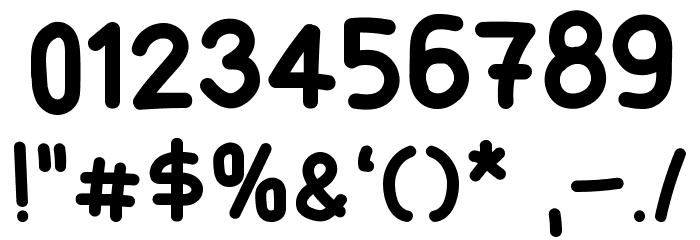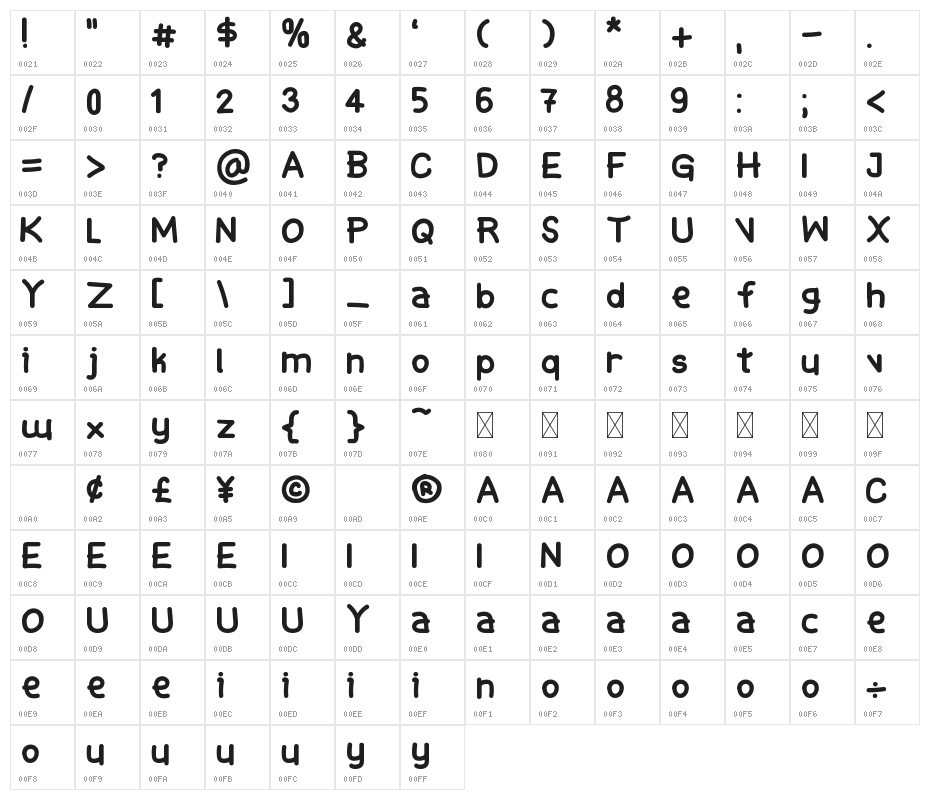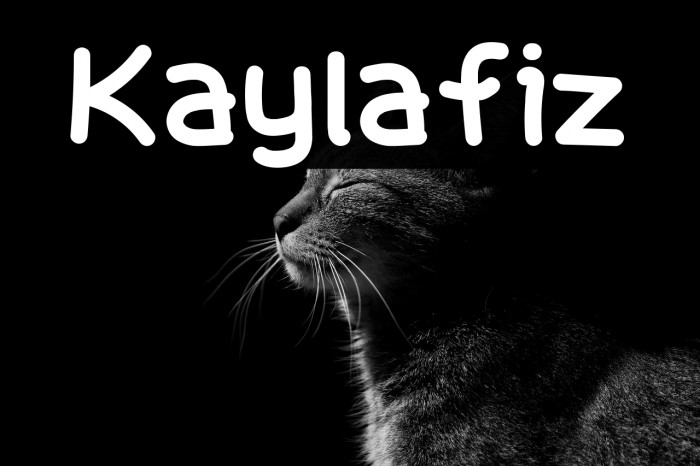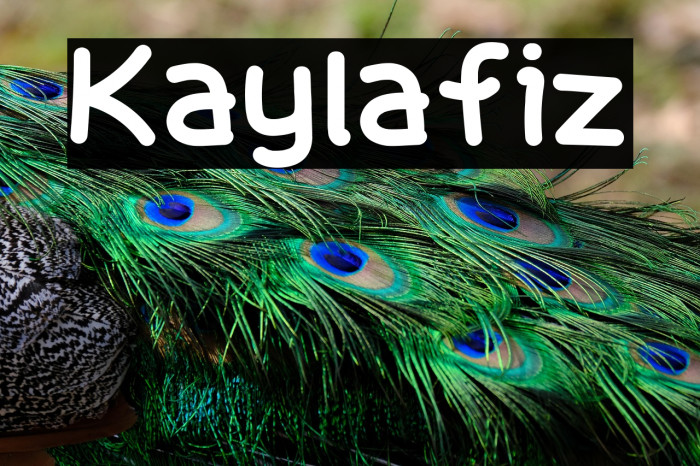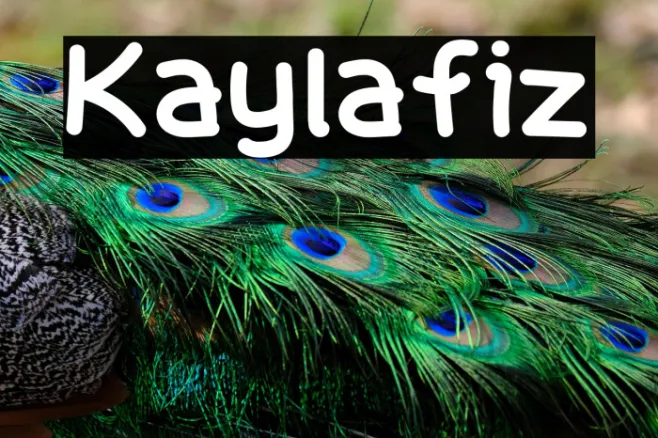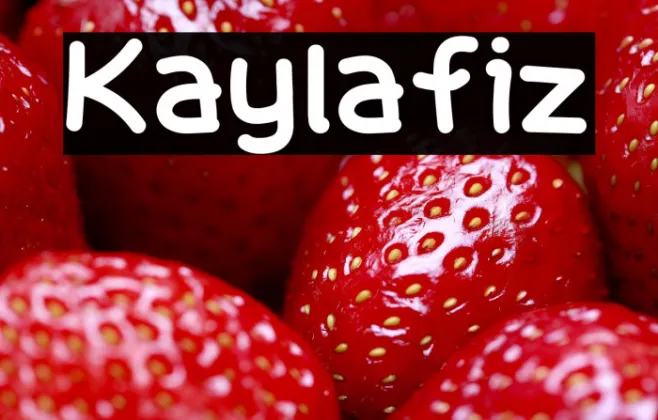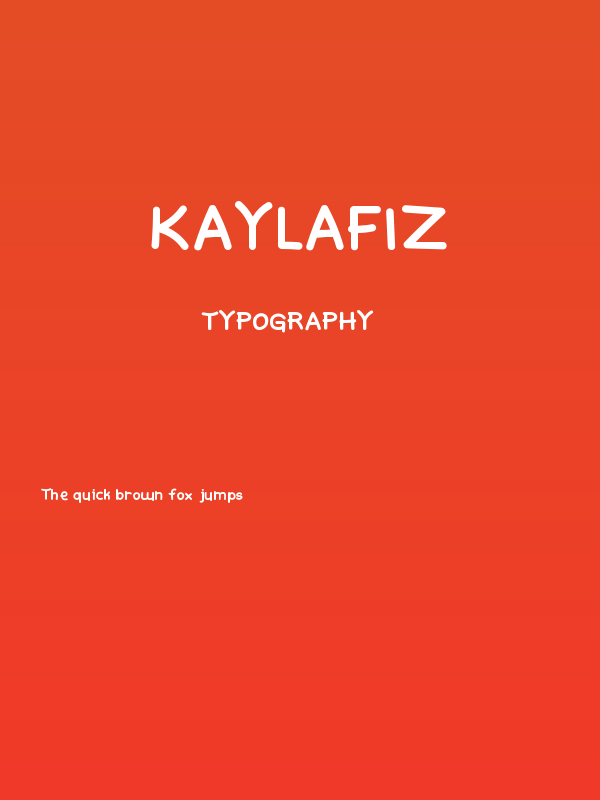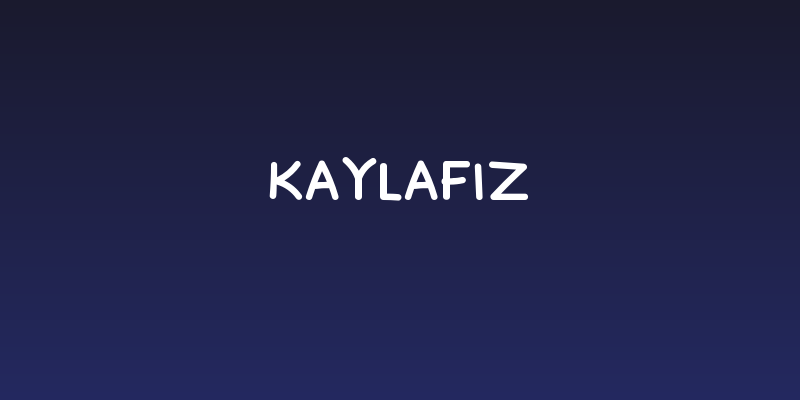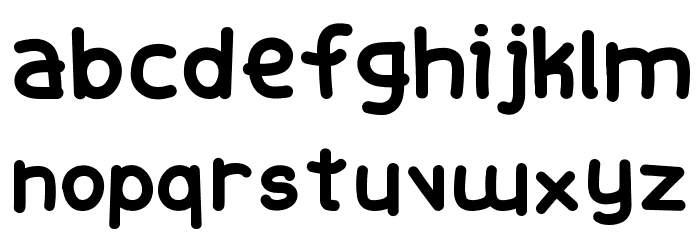
Kaylafiz Font
Kaylafiz Description
This playful and rounded font features a casual, handwritten style with a friendly and approachable appearance. The letters are bold and slightly irregular, giving them a whimsical and informal feel. The strokes are consistent in width, contributing to a uniform look while maintaining a sense of individuality in each character. The font includes both uppercase and lowercase letters, numbers, and a variety of special characters, making it versatile for different uses. Its rounded edges and smooth curves enhance its readability and charm, making it suitable for projects that require a touch of personality and warmth.